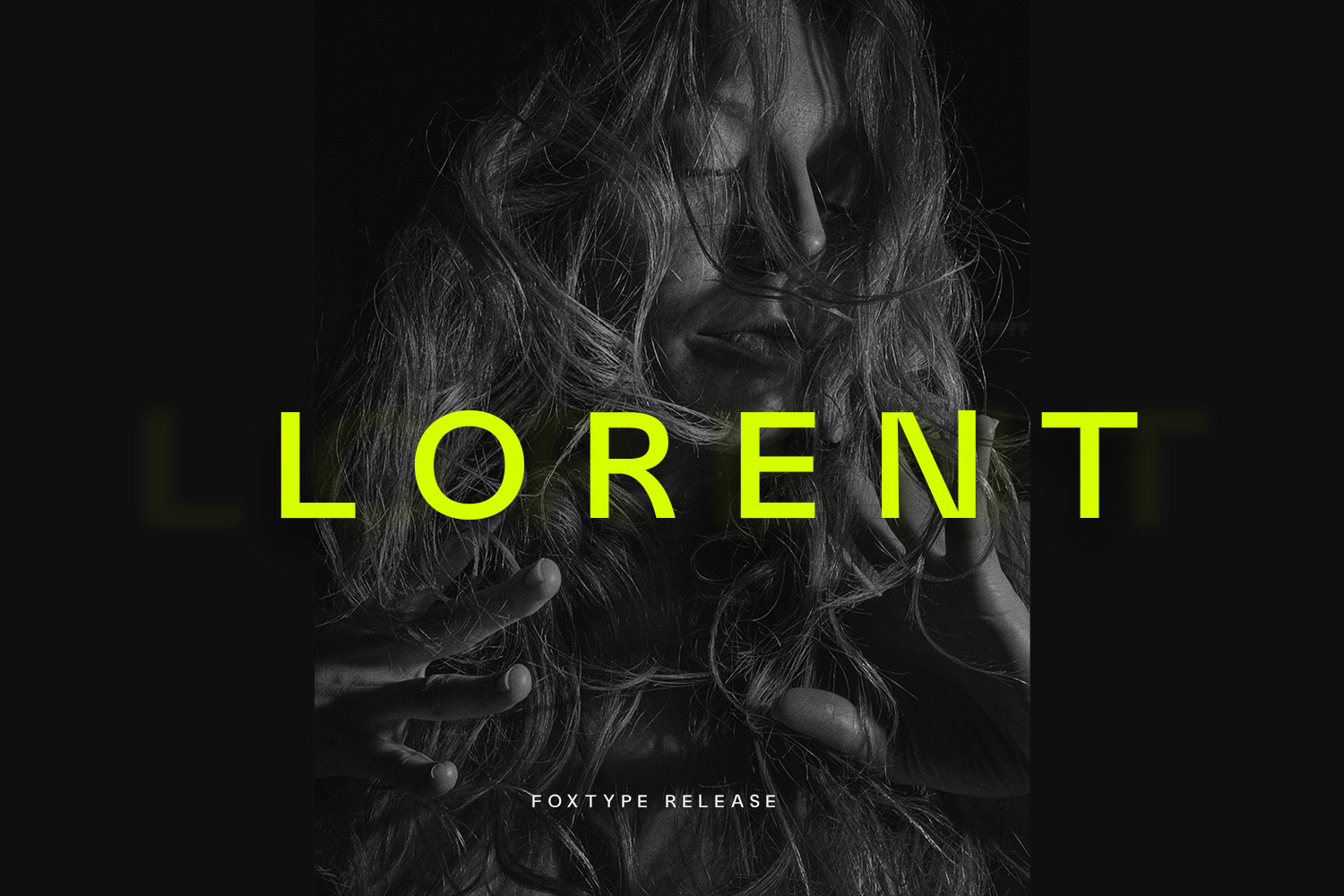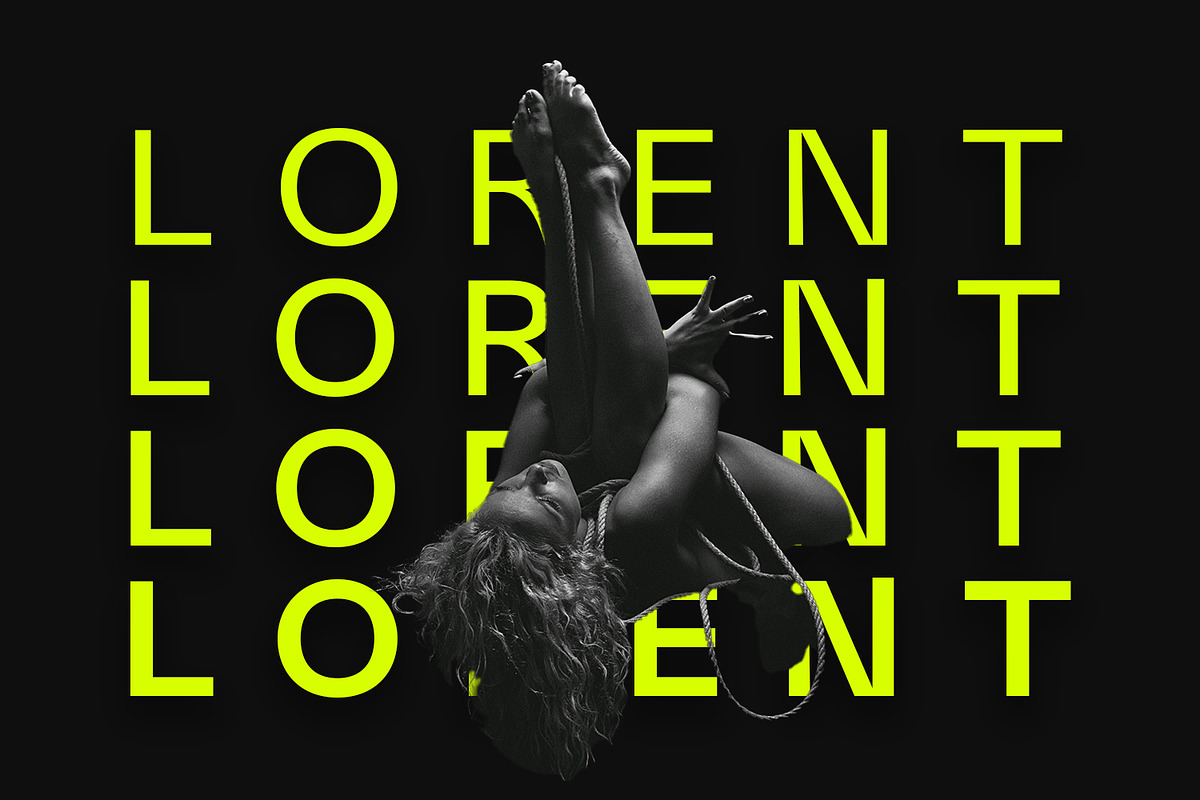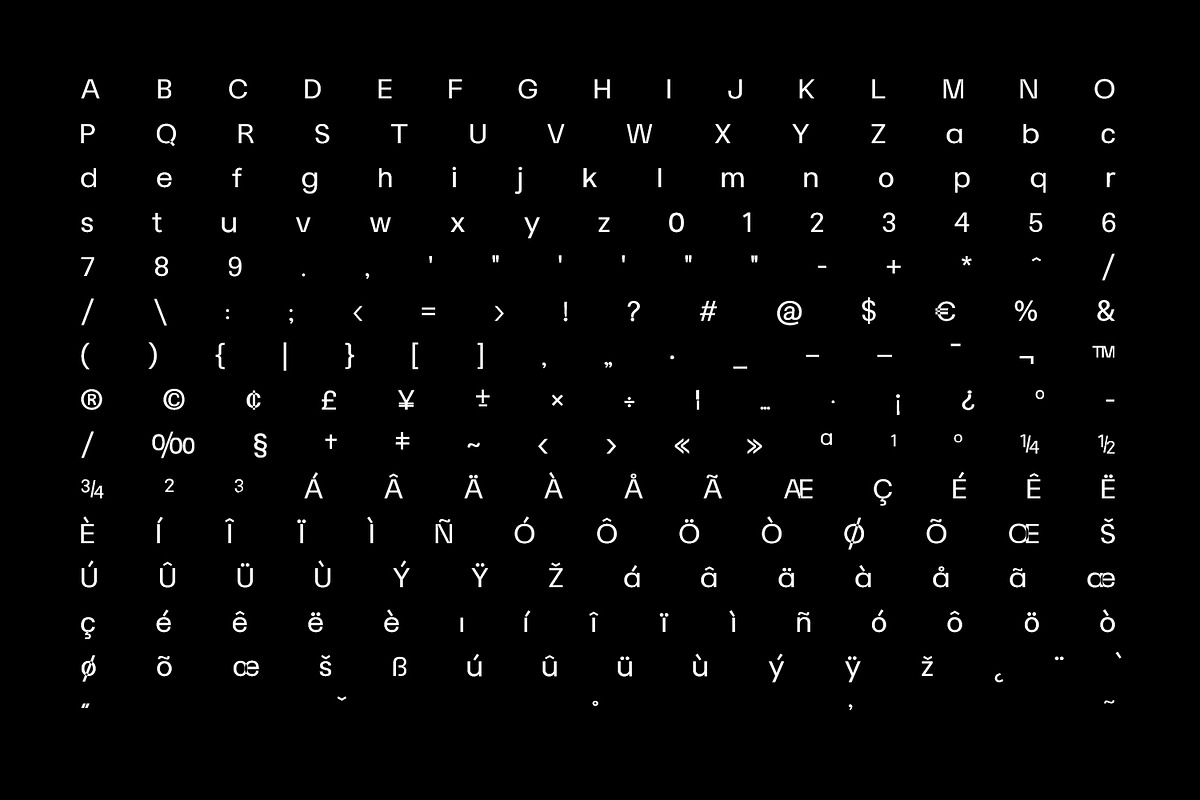
Lorent Display Typeface
Introducing Lorent Display Typeface, a meticulously crafted modern sans-serif typeface perfect for a wide range of design projects. With 04 versatile weights, Lorent excels in creating striking headlines, captivating posters, and sophisticated branding materials. Its clean lines and contemporary style make it an ideal choice for magazine covers, logo designs, paragraph texts and more.